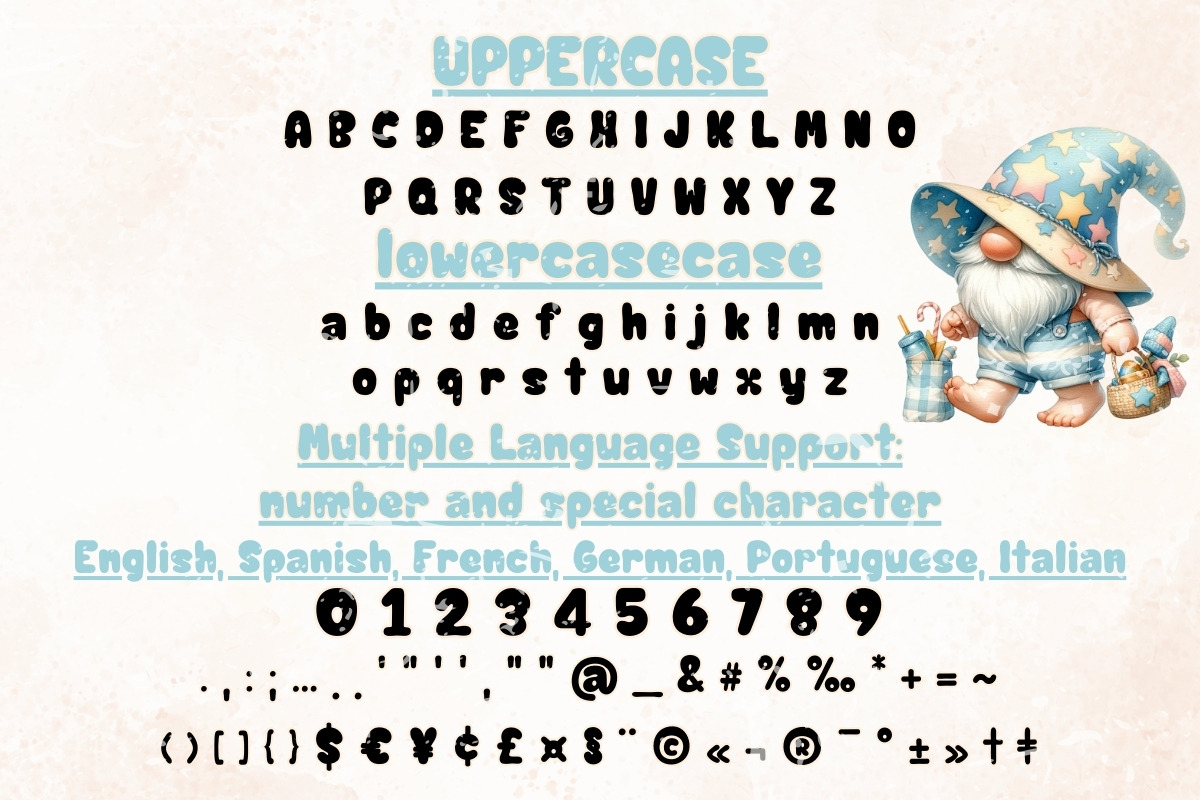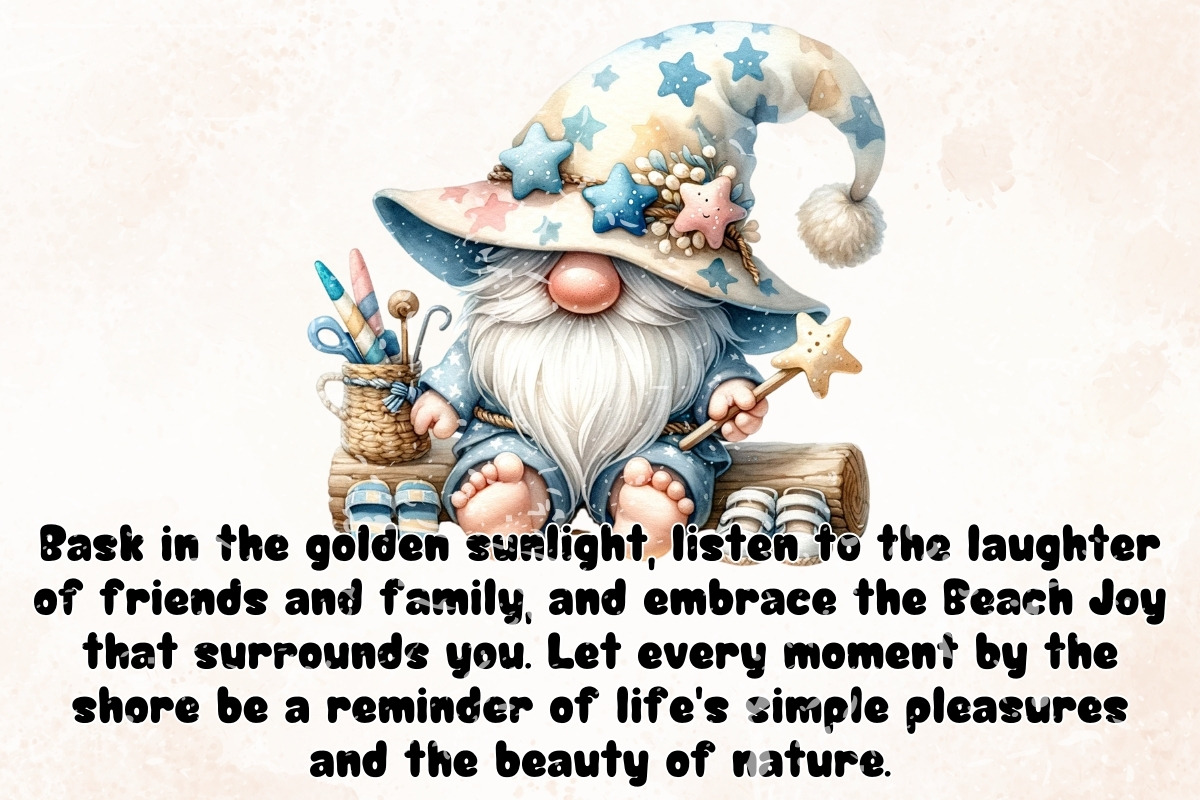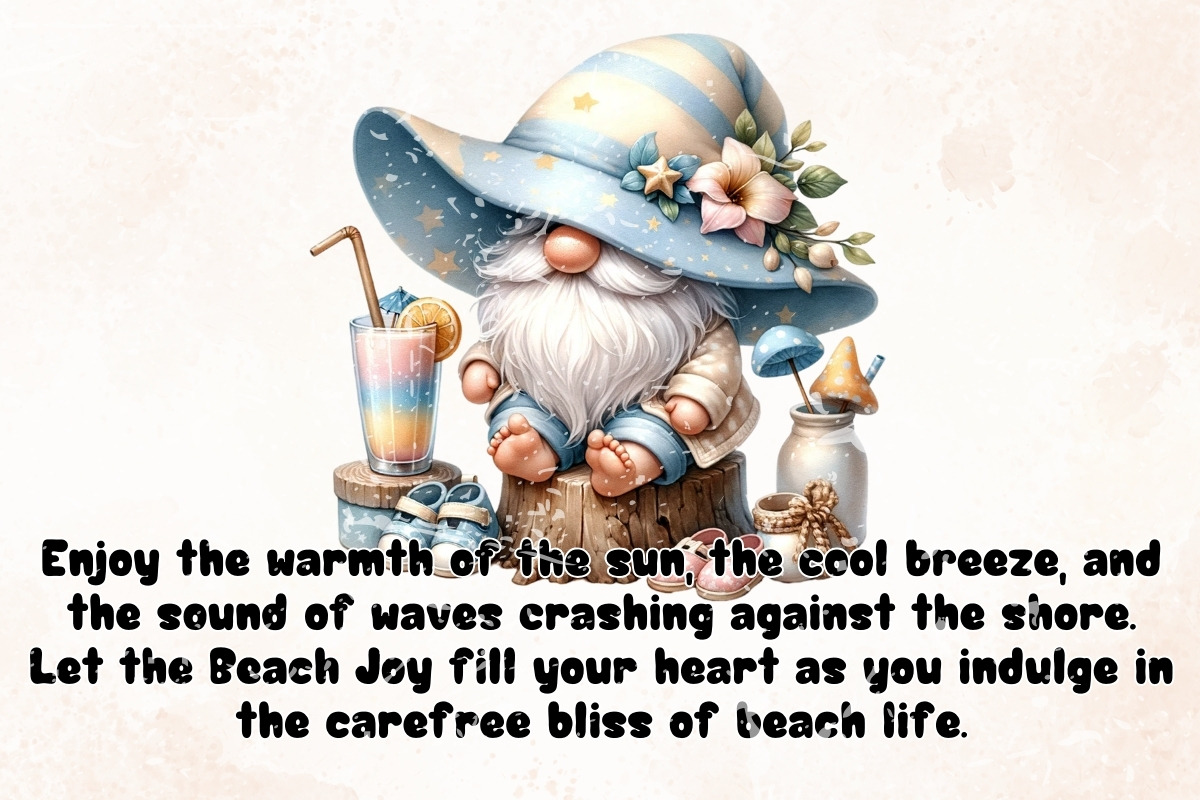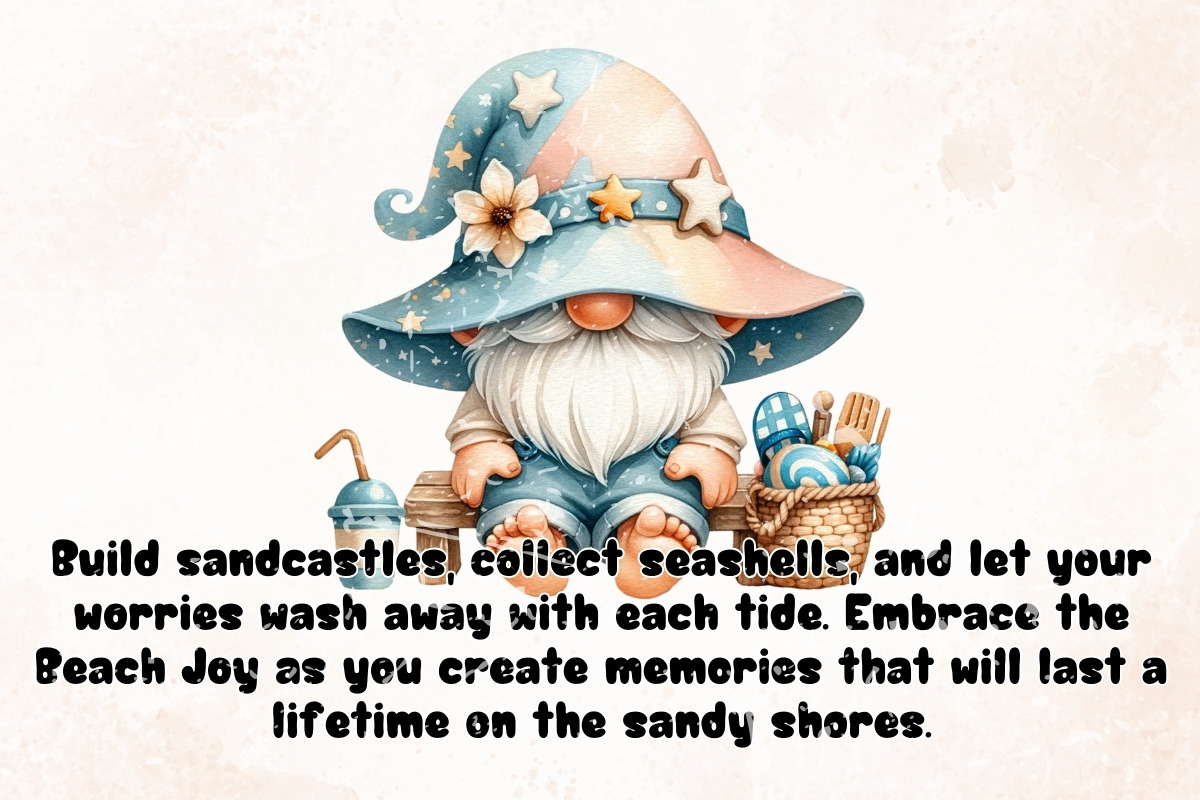
Beach Joy - Handwriting
Introducing "Beach Joy" – a whimsical and charming handwritten font that brings a touch of playful elegance to your projects. With its delicate curves and stylish flourishes, this font captures the carefree spirit of a sunny day at the beach.